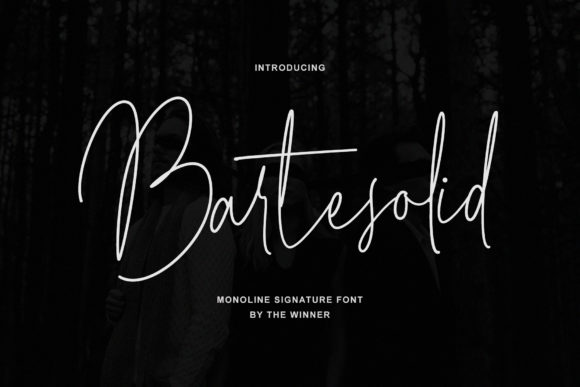
Descend into the ethereal world of Bartesolid, where elegance dances and beauty unfolds.
Bartesolid, our exquisite script font, is a masterpiece crafted for the discerning eye. Its delicate strokes, meticulously designed, evoke the fluidity of cursive penmanship, inviting you to capture the essence of handwritten grace. Each character is infused with a touch of whimsy and charm, ready to elevate your creations to new heights of sophistication.
Whether you're a visionary designer, an ambitious entrepreneur, or a passionate crafter, Bartesolid empowers you to express your individuality with unparalleled flair. Its versatility knows no bounds, effortlessly complementing a wide range of projects.
Imagine your branding adorned with Bartesolid's enchanting curves, adding a touch of timeless elegance to your every endeavor. Envision product packaging that whispers stories with Bartesolid's gentle embrace, alluring customers with its captivating charm. Invitations penned in Bartesolid's graceful script promise a glimpse into an extraordinary event, setting the tone for unforgettable memories.
Quotes rendered in Bartesolid's delicate lines inspire and uplift, transforming words into works of art. T-shirts emblazoned with Bartesolid's playful strokes become wearable expressions of personality, making a bold statement wherever you go. Labels adorned with Bartesolid's intricate design elevate everyday items into objects of desire, showcasing your discerning taste.
Bartesolid's allure extends to posters that ignite imaginations, transforming walls into canvases of dreams. And for the logo that will define your brand, Bartesolid offers a foundation of timeless appeal, ensuring that your identity leaves a lasting impression.
As you delve into the world of Bartesolid, you'll discover a font that's not just a tool, but a muse. It's a gateway to a world of creativity, where your visions take flight and your imagination knows no limits.
So, embrace the enchantment of Bartesolid and unleash the power of cursive elegance in all its glory. Let your creations shine with an ethereal grace that will captivate hearts and leave an enduring legacy.